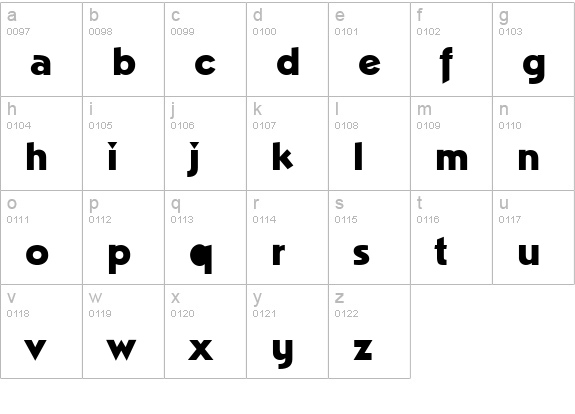
Pythagoras Regular is the standard, neutral variant in the Pythagoras typeface family \xE2\x80\x94 well suited to general body text, paragraphs, and standard typographic work.
Pythagoras Regular font is a sleek and modern typeface that exudes elegance and sophistication. With its clean lines and balanced proportions, this font is perfect for a wide range of design projects. Whether you're creating a timeless logo, sleek branding materials, or stylish editorial layouts, Pythagoras Regular font will add a touch of class to your work. The best part? Pythagoras Regular font is available for free download at FontsMarket.com. That's right, you can enhance your designs with this high-quality font without breaking the bank. Don't miss out on the opportunity to elevate your projects with the timeless appeal of Pythagoras Regular font - download it today and start creating stunning designs effortlessly.